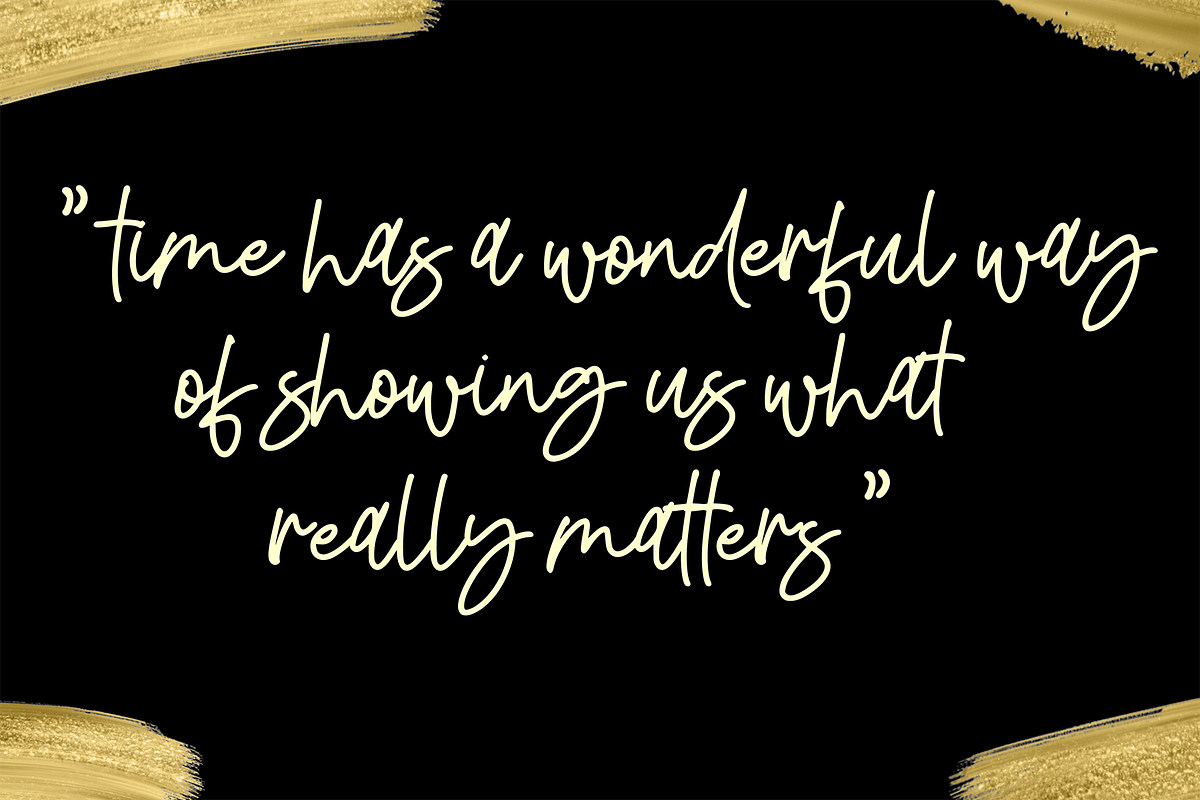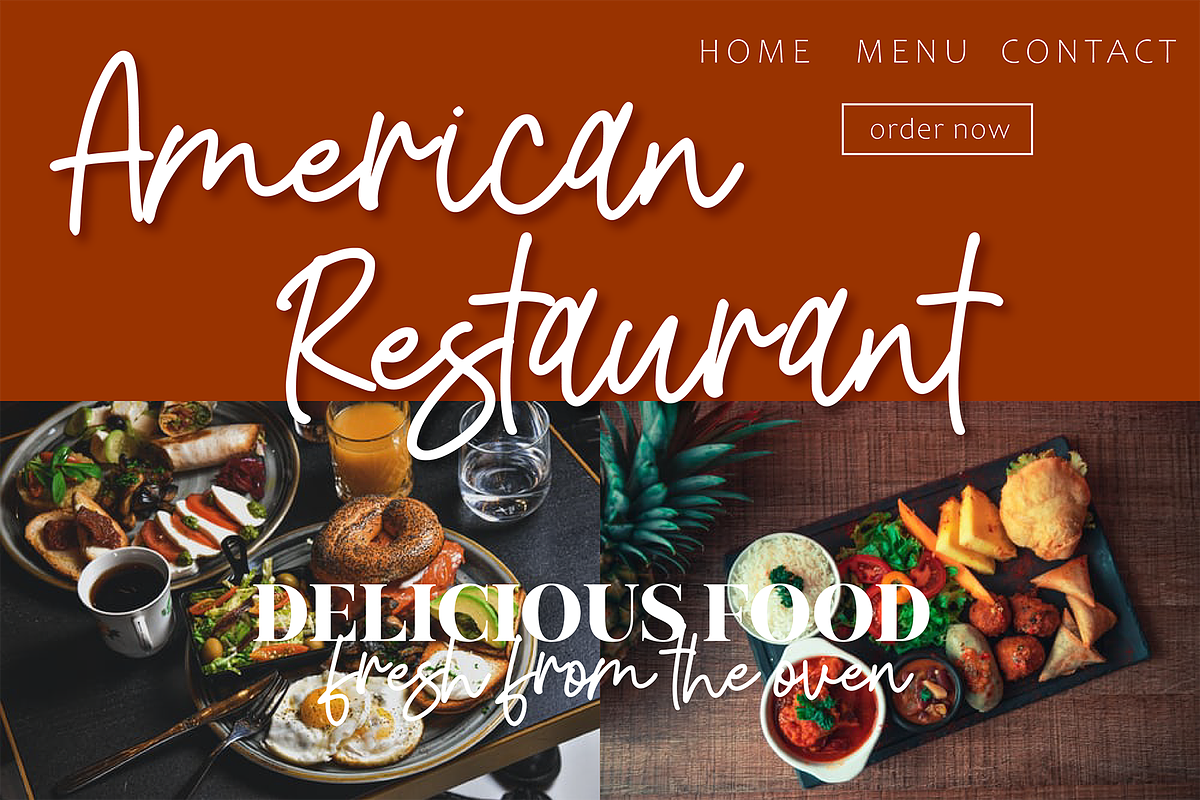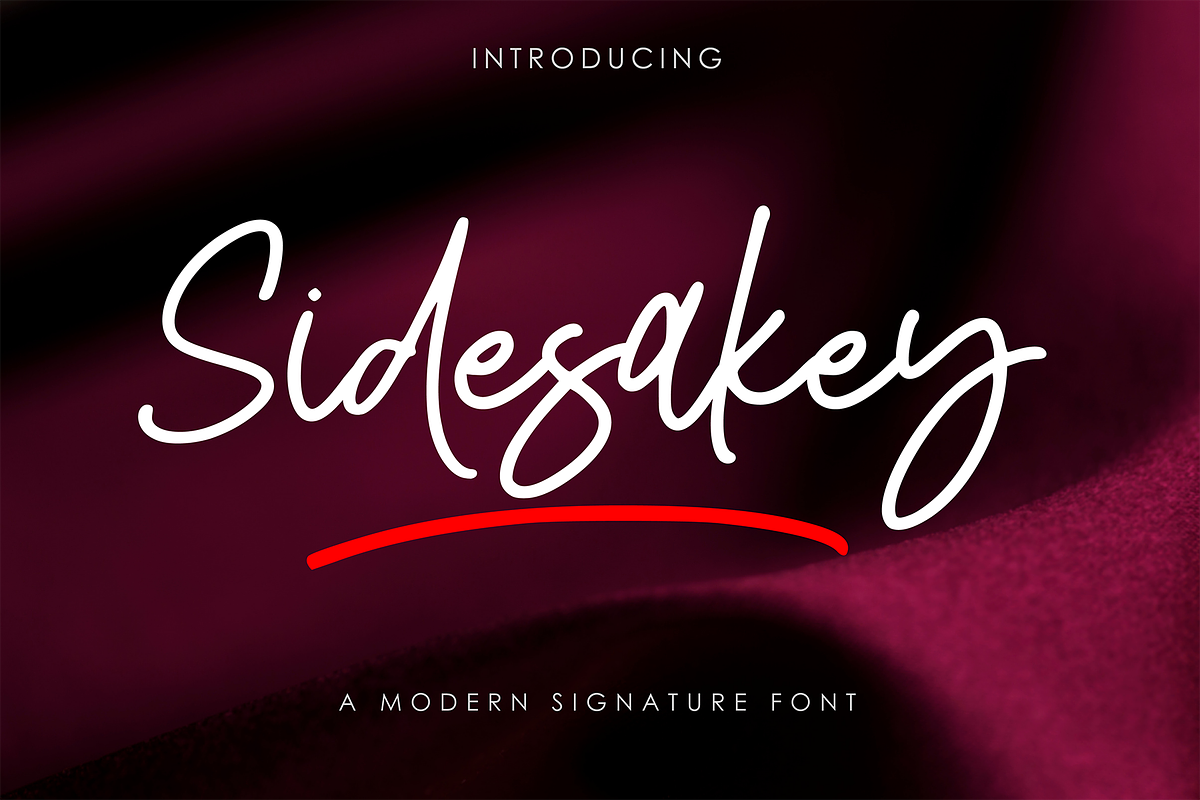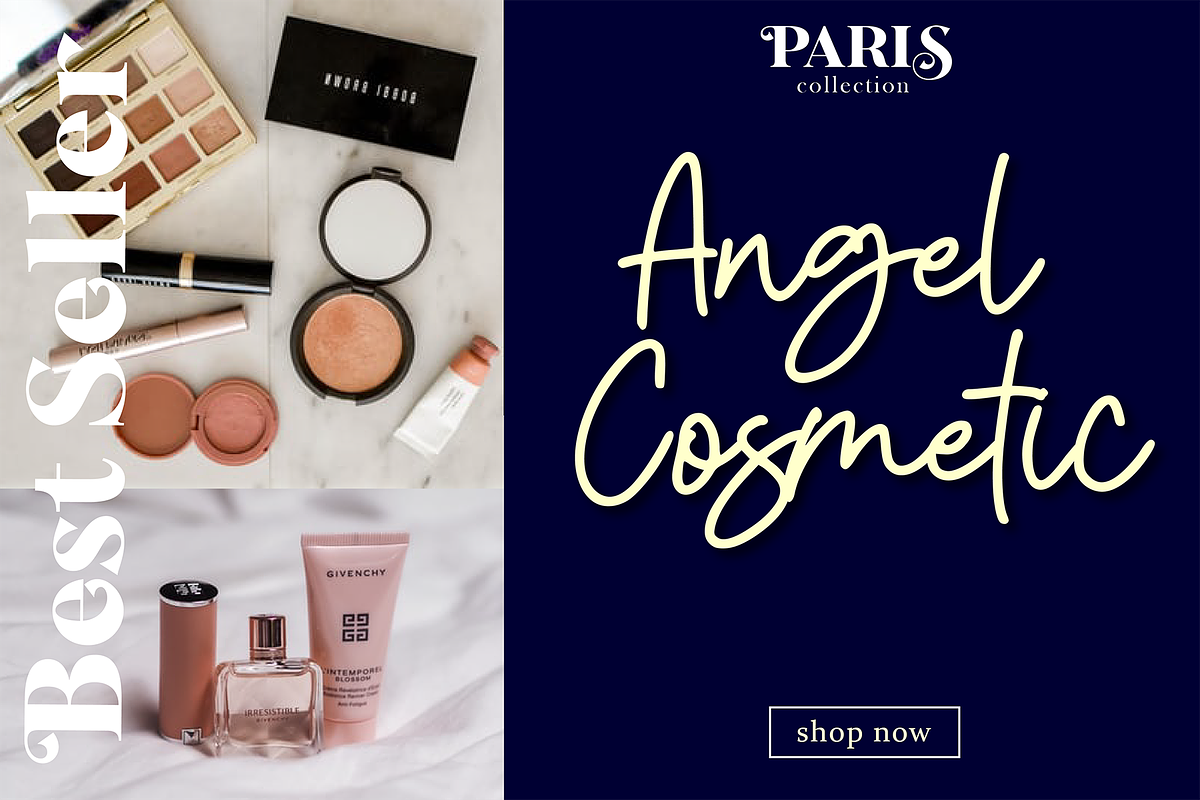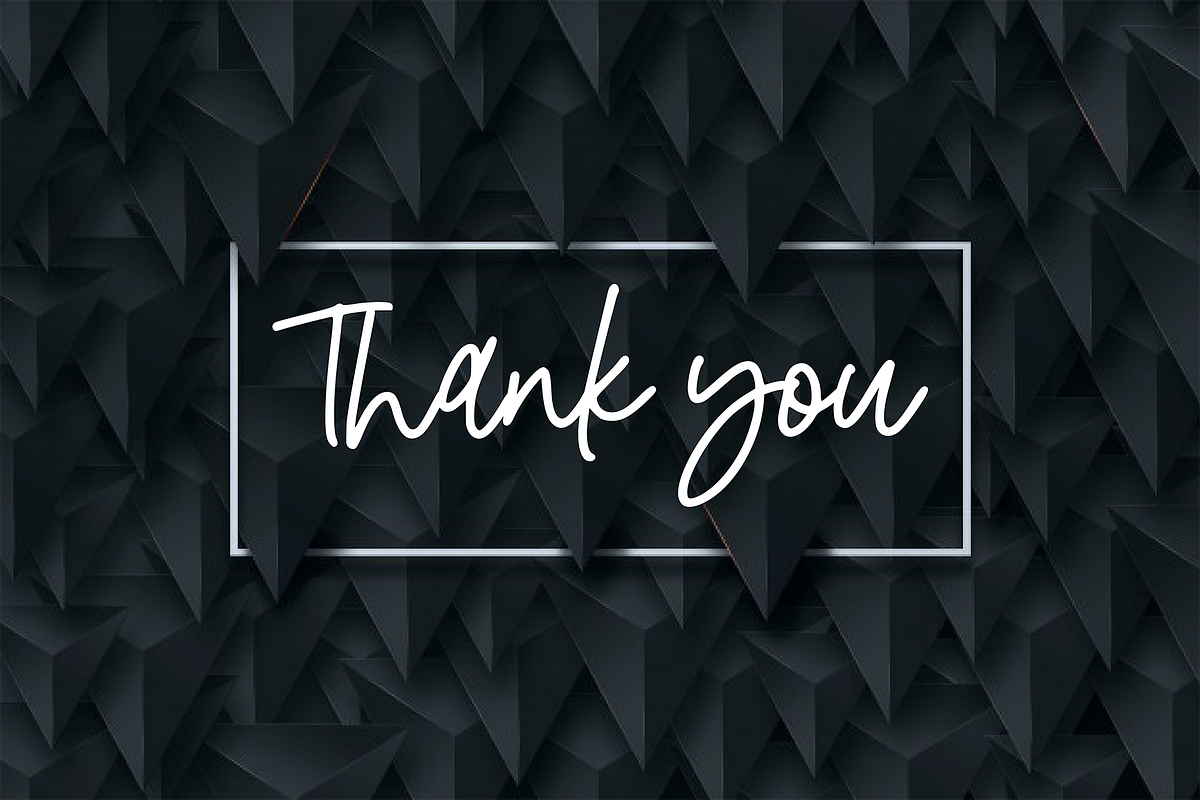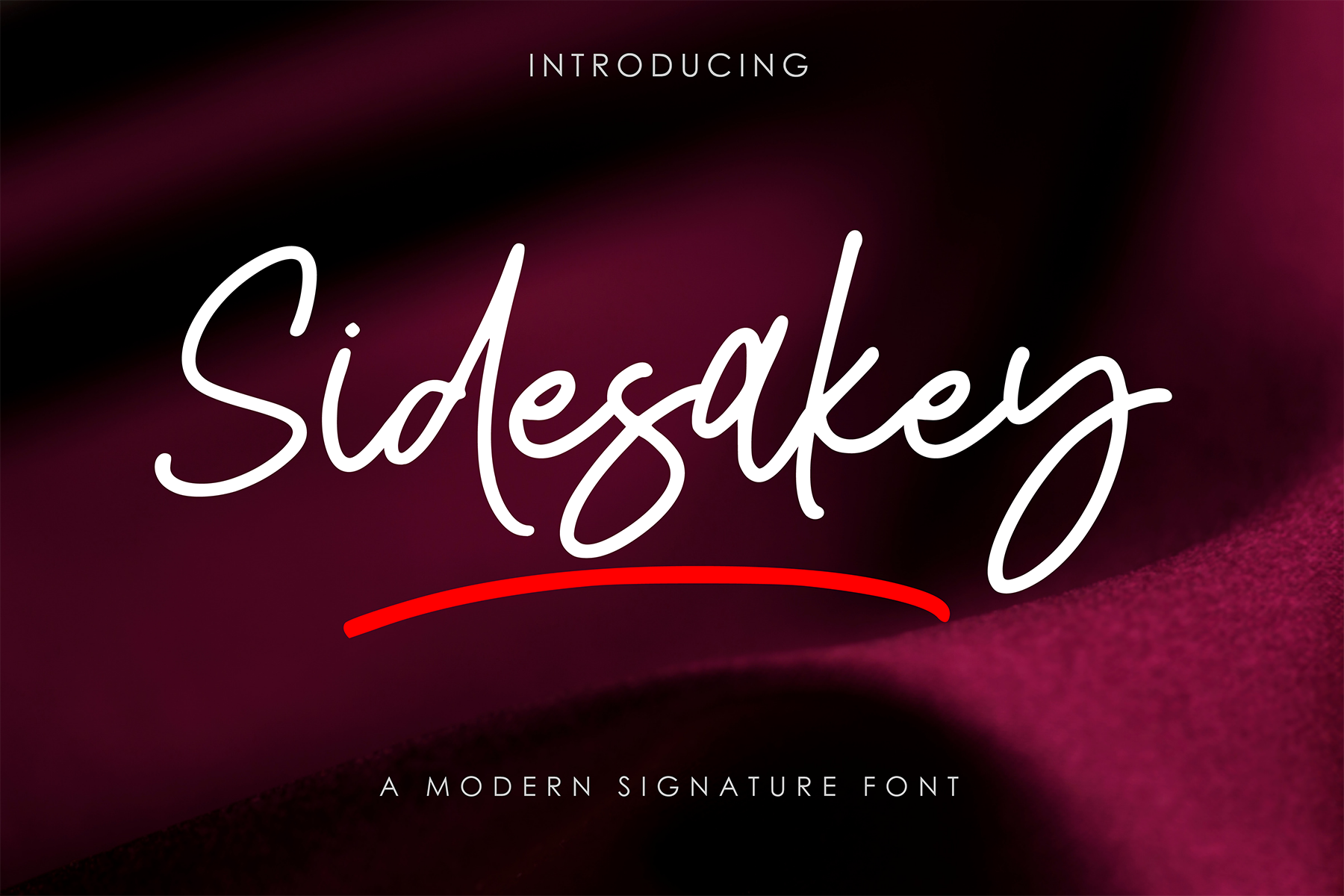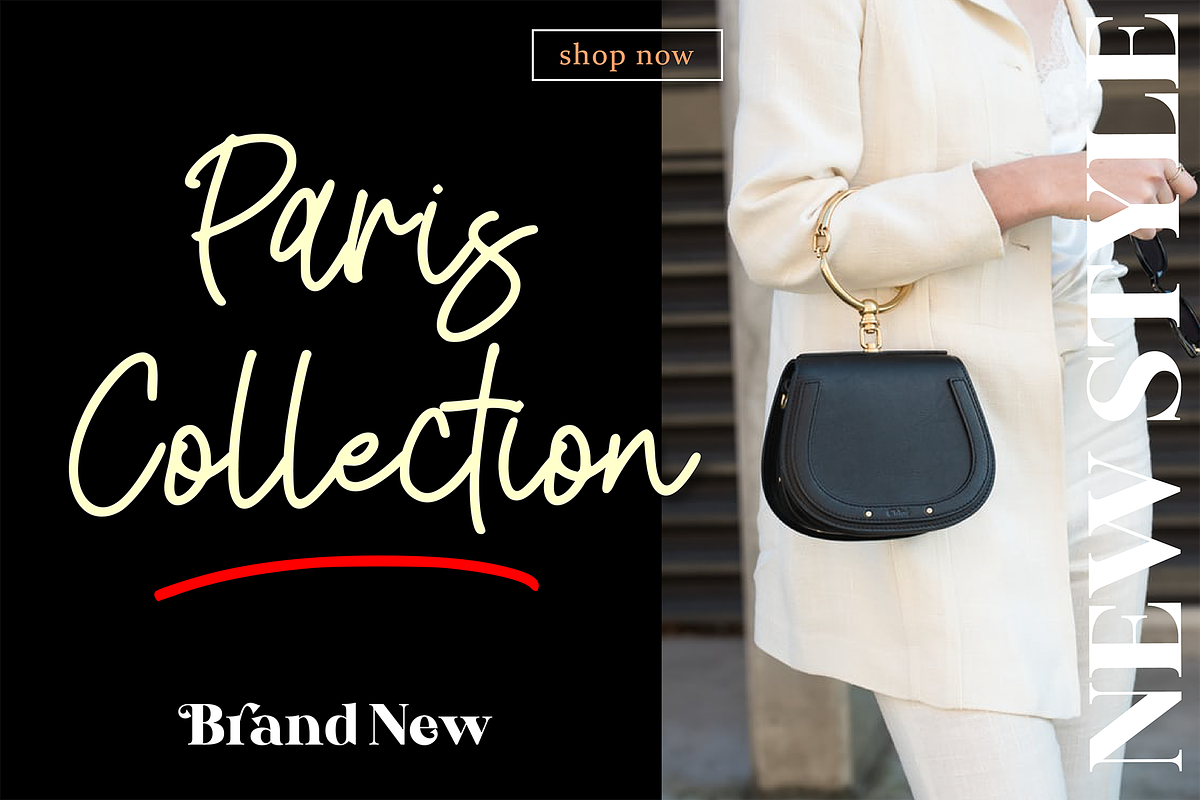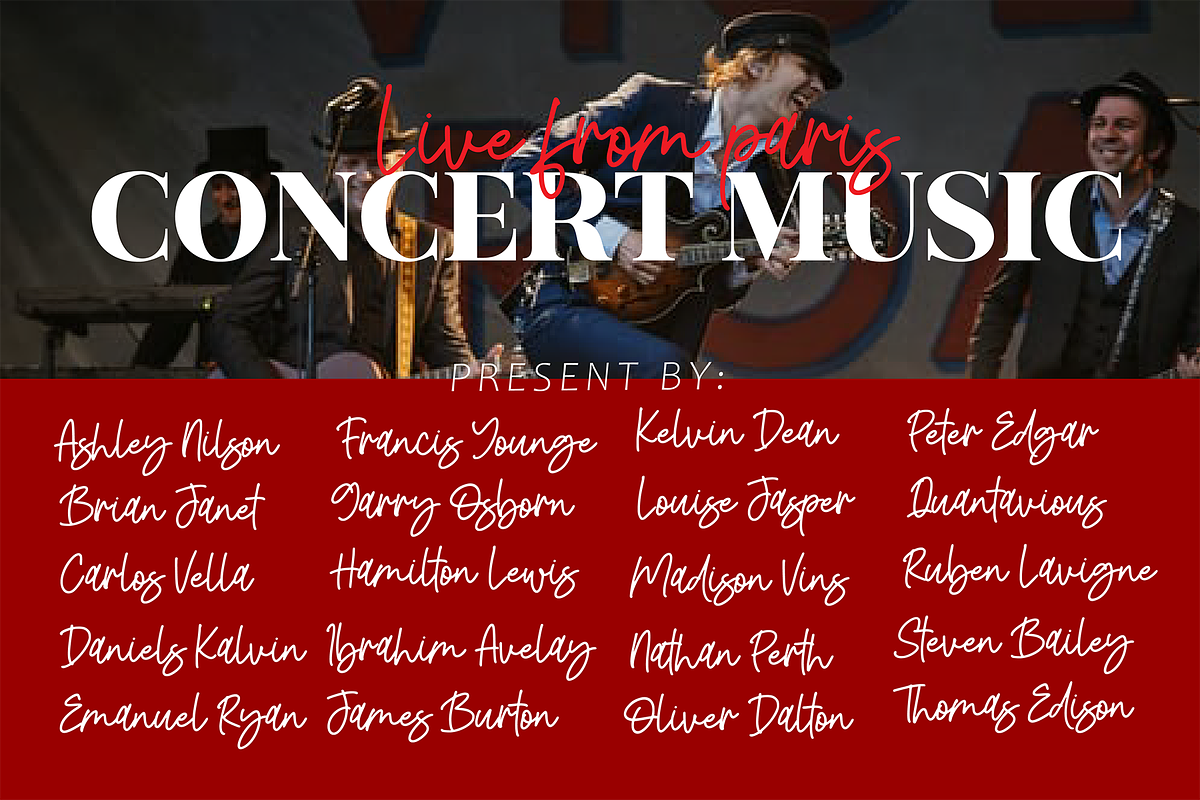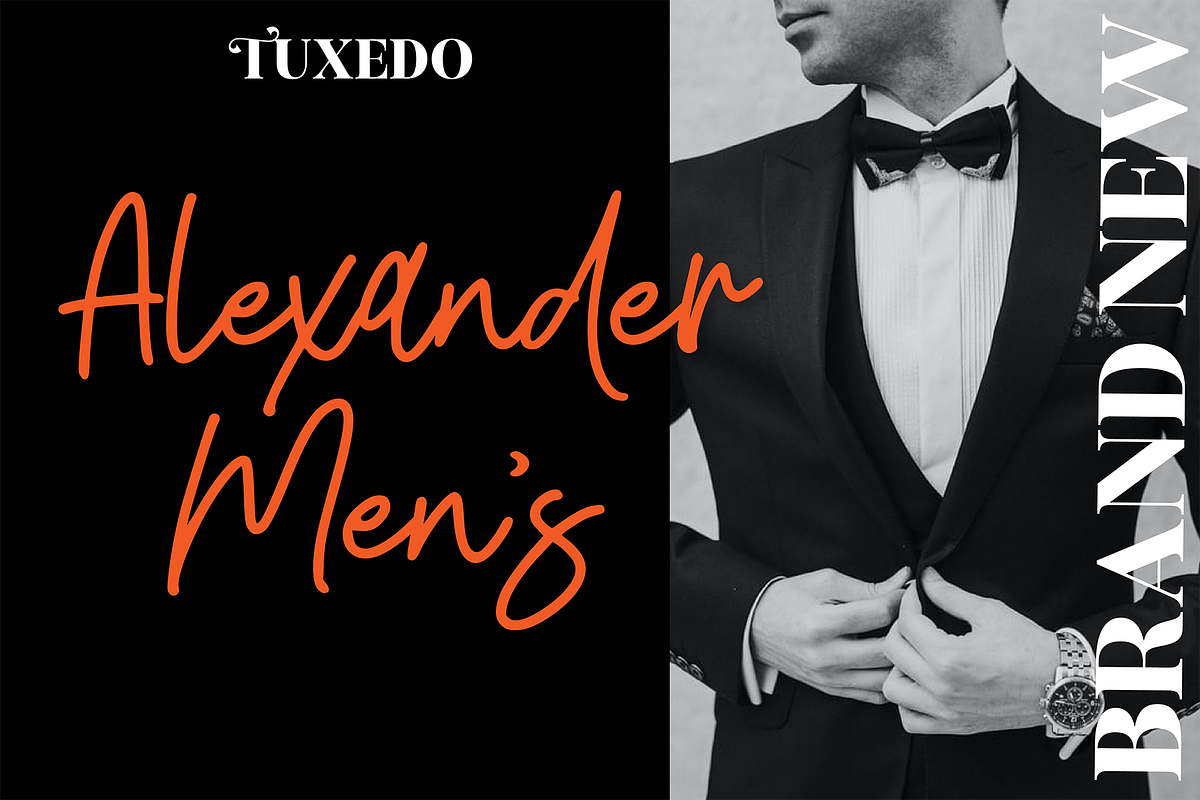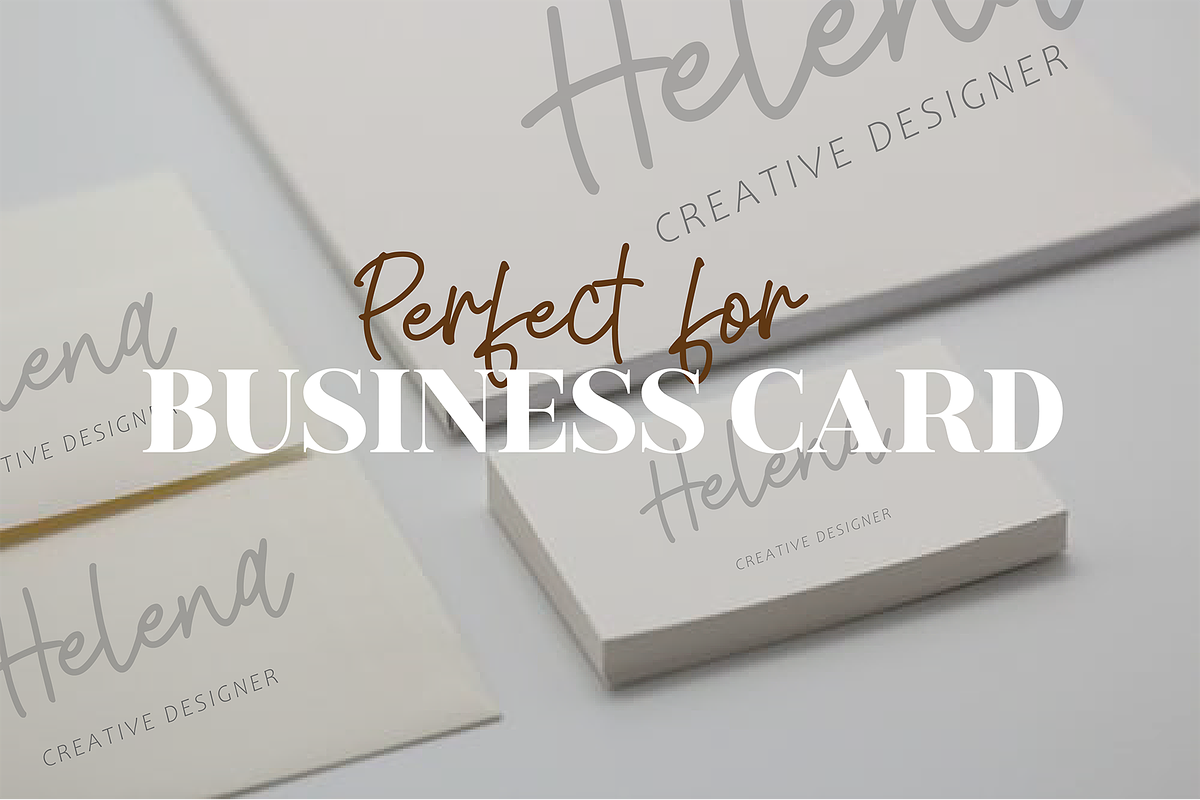
Sidesakey | Signature Font
Sidesakey simplifies elegance into one truly stunning handwritten font. With its relaxed feel, Sidesakey is incredibly versatile, suitable to each of the design projects you may have in mind! Use it to create beautiful greeting cards, wedding invitations, logos, website titles and much more! Comes in Regular and Italic styles.